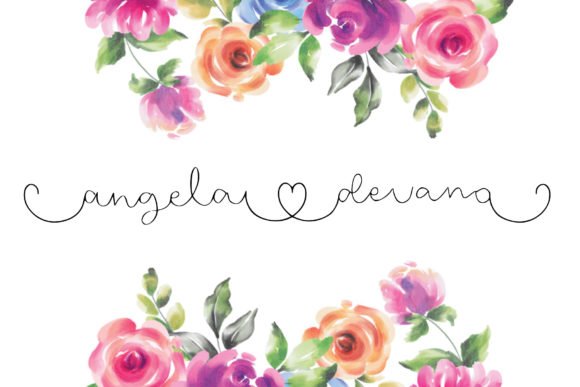
Get Ready to Fall in Love with Handwritten Charm
As a designer, have you ever been stuck in a creative rut, struggling to find the perfect font to bring your vision to life? I know I have! But then, something magical happens. You stumble upon a font that speaks to your soul, and suddenly, the ideas start flowing.
That’s exactly what happened when I discovered the Angela Devano Font. This stunning handwritten font is a true masterpiece, with its distinct and well-rounded letters making it a versatile and sought-after choice for designers. Whether you’re working on a wedding invitation, a children’s book, or a social media campaign, the Angela Devano Font is sure to add a touch of warmth and personality to your design.
Angela Devano Font Key Features
- Unique Characteristics: Angela Devano Font features a modern and elegant design with a mix of handwritten and serif elements, making it perfect for various design projects, including invitations, quotes, and social media graphics.
Angela Devano Font Review
The Angela Devano Font is a beautiful, elegant script font that exudes sophistication and refinement. ✨ I appreciate the intricate details and flourishes that give it a hand-painted feel, making it perfect for formal invitations, wedding stationery, or luxury branding.
Here are some of the font’s strengths:
- ✨ Highly legible, even at small font sizes
- ✨ Beautifully designed with intricate details and flourishes
- ✨ Versatile and suitable for a wide range of design applications
- ⚠️ May not be suitable for digital use, as it can appear pixelated or blurry at certain resolutions
- ⚠️ Can be difficult to pair with other fonts, as its unique style may clash with more modern or sans-serif fonts
Overall, I think the Angela Devano Font is a stunning choice for designers who want to add a touch of elegance and sophistication to their projects. While it may have some limitations, its unique design and beautiful details make it well worth considering.
The Angela Devano font is ideal for:
- Home decor and furniture design
Remember to use the font consistently throughout your design to create a cohesive look.
Alternatives to Angela Devano Font for Designers
Great Vibes is a beautiful, elegant script font that is perfect for adding a touch of sophistication to your designs. It is ideal for use in wedding invitations, quotes, and other creative projects where a flowing, handwritten feel is desired. Compared to Angela Devano Font, Great Vibes has a more refined and polished look, making it a great choice for formal designs.
Carolyna Pro is a modern script font that is great for creating eye-catching headings and titles. It is highly customizable, allowing you to adjust the font’s size, color, and style to suit your design needs. Compared to Angela Devano Font, Carolyna Pro has a more modern and trendy feel, making it a great choice for fashion, beauty, and lifestyle designs.
Alex Brush is a elegant, handwritten font that is perfect for use in designs where a touch of whimsy and personality is desired. It is ideal for use in quotes, social media graphics, and other creative projects where a unique and expressive feel is needed. Compared to Angela Devano Font, Alex Brush has a more casual and relaxed look, making it a great choice for informal designs.
Pacifico is a beautiful, elegant script font that is perfect for use in designs where a touch of sophistication and elegance is desired. It is ideal for use in wedding invitations, quotes, and other creative projects where a flowing, handwritten feel is desired. Compared to Angela Devano Font, Pacifico has a more refined and polished look, making it a great choice for formal designs.